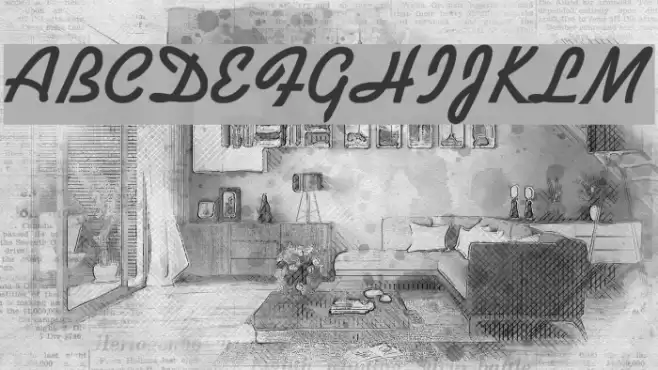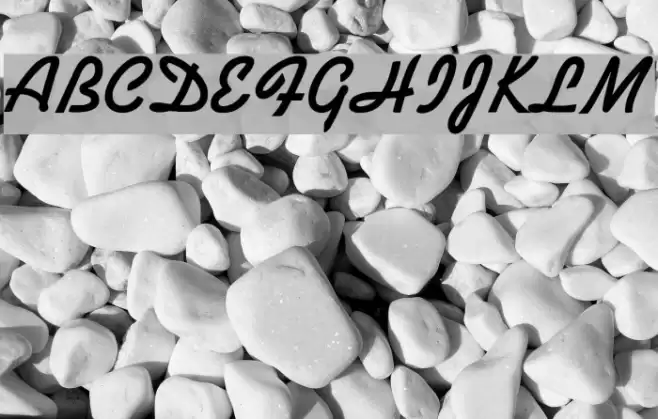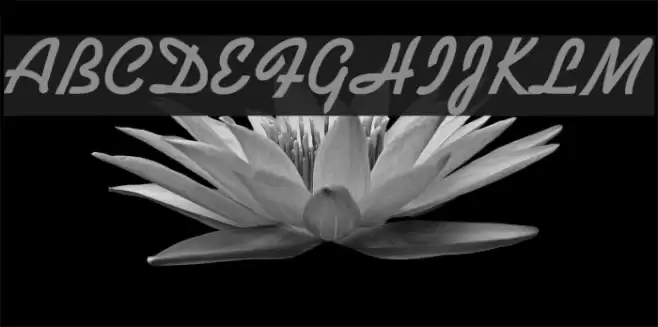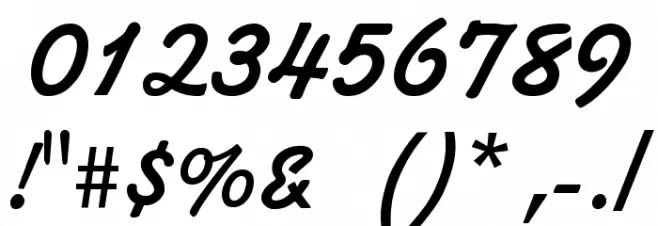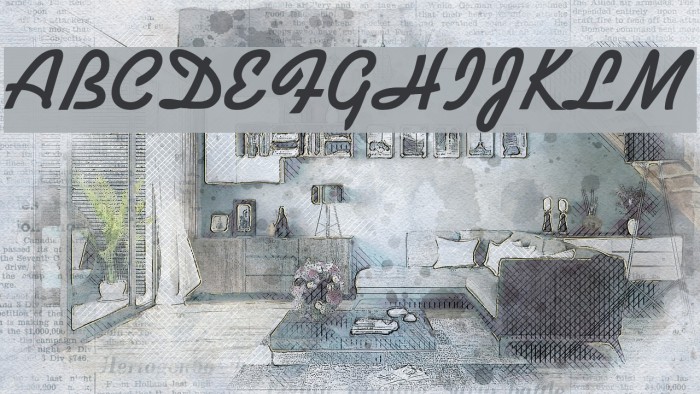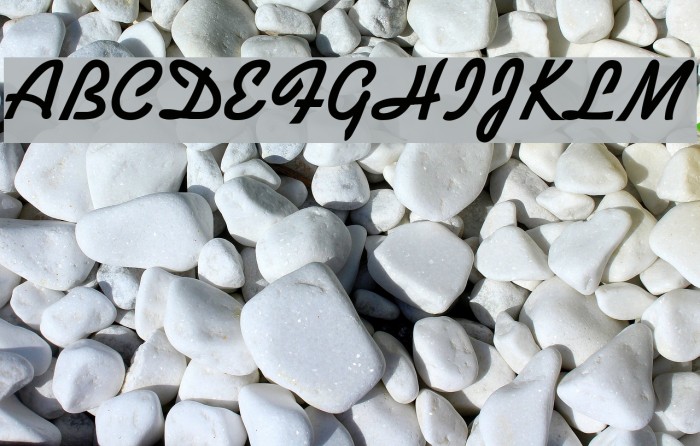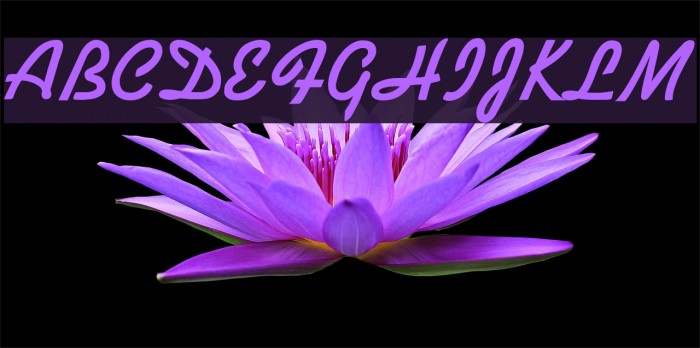
Alako-Bold Font
Alako-Bold Description
This font features a bold, cursive style with smooth, flowing lines that give it a dynamic and energetic appearance. The characters are well-connected, creating a sense of continuity and movement. The uppercase letters are slightly larger and more pronounced, while the lowercase letters maintain a consistent flow. The numbers and special characters follow the same cursive style, ensuring uniformity across all elements. This font's boldness makes it stand out, while its cursive nature adds a touch of elegance and sophistication.
A bold, cursive font with smooth, flowing lines and dynamic style from Handwritten fonts.
- Proposed Projects: Ideal for branding, invitations, greeting cards, and decorative headlines.
- Use Case: Logos, Invitations, Decorative Headlines